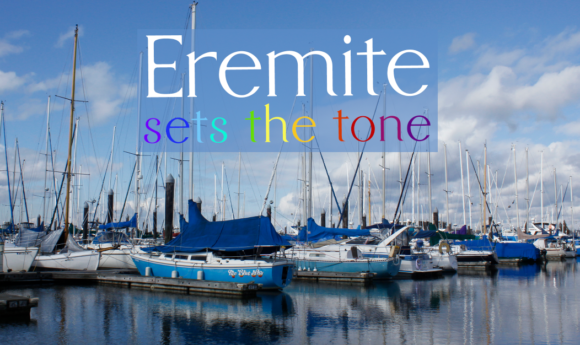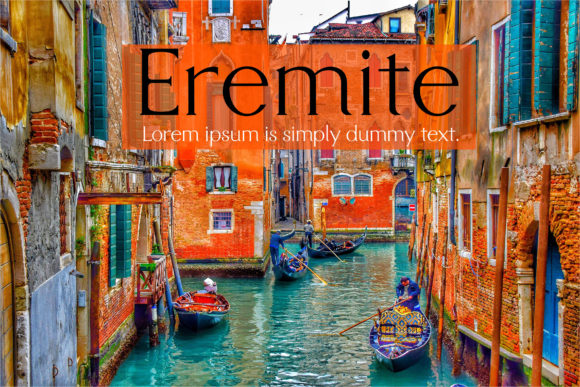
Introduction to Eremite Font
Eremite is a stylish and sleek serif font.
It is ideal for headlines, titles, magazines, headings, logos, and nearly any creative design that could benefit from a delicate vibe .
Key Features of Eremite Font